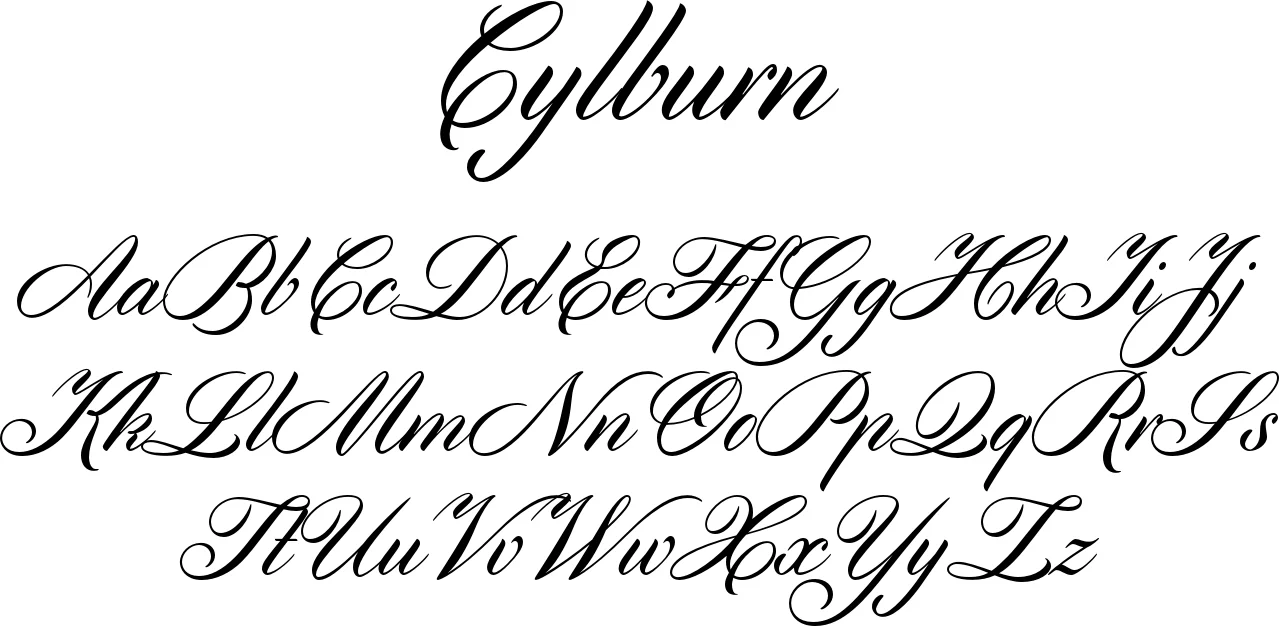
Artsy Writing Fonts. Click to find the best 415 free fonts in the artsy handwriting style. These handwritten fonts are drawn using any kind of writing instrument like pen, pencil, felt marker, brush, etc.
Script typefaces are based upon the varied and often fluid stroke created by handwriting, pretty much like the cursive fonts just typically more elegant. Making the web more beautiful, fast, and open through great typography 6442 free handwritten fonts · 1001 fonts font categories
Click to find the best 415 free fonts in the artsy handwriting style. **handwriting** seems to have lost some of its attraction over the last years. See more ideas about lettering, hand lettering, lettering alphabet.
See More Ideas About Lettering Fonts, Lettering, Writing Styles.
They are organized into highly regular formal types similar to cursive writing and looser, more casual scripts. Collection of most popular free to download fonts for windows and mac. I use it for inspirations in journalling.writing on cards.decorations.its so much fun.